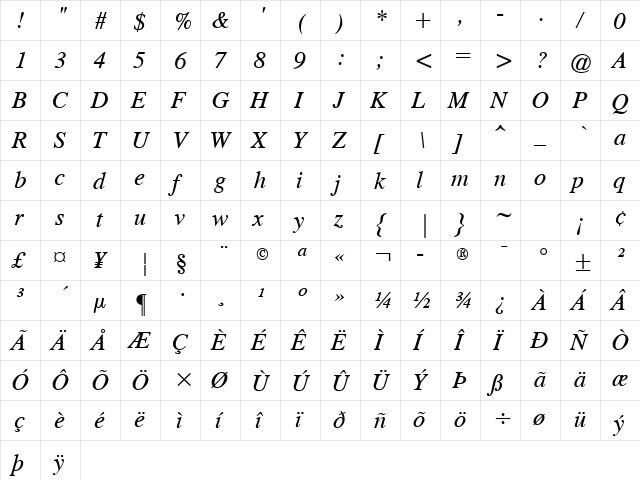
Times CG ATT Italic
Design Context for Times CG ATT Typeface
Times CG ATT is a composed and adaptable typeface that performs quietly and consistently across a wide range of design contexts. Its italic angle brings a sense of urgency and motion to the letterforms.
Pro Tip: Try Times CG ATT for annotation and caption copy alongside an upright companion — the contrast in angle creates a dynamic but ordered typographic system.